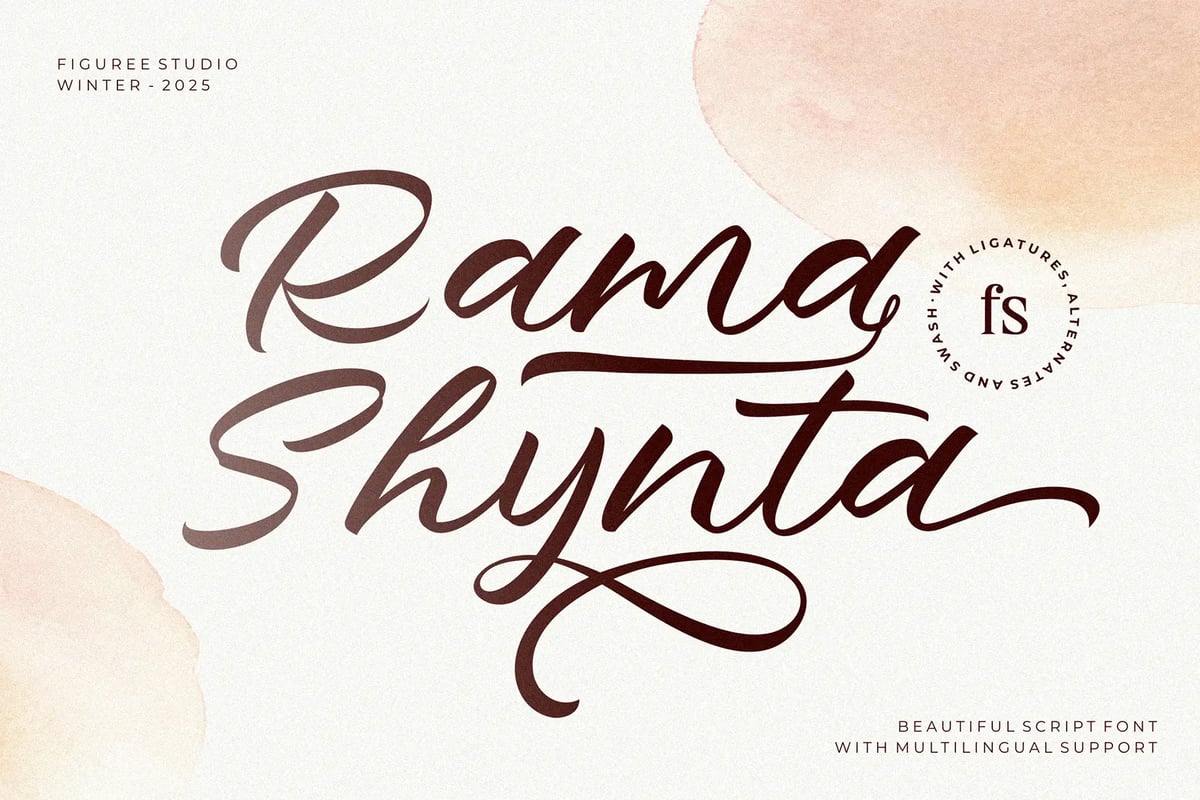
Ramashynta
Ramashynta – Beautiful Script Font for Elegant Design Projects Typography isn’t just about letters—it’s about emotion, rhythm, and beauty. Ramashynta – Beautiful Script Font was crafted to capture elegance and romance in every curve. With flowing ligatures, graceful alternates, and smooth swashes, this beautiful script font transforms your text into art. Perfect for wedding invitations, branding, logos, or social media designs, Ramashynta adds a timeless charm that feels both modern and class